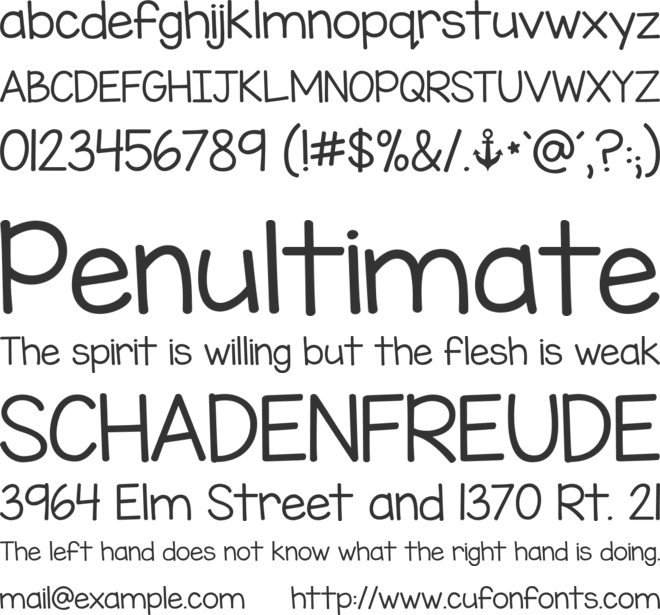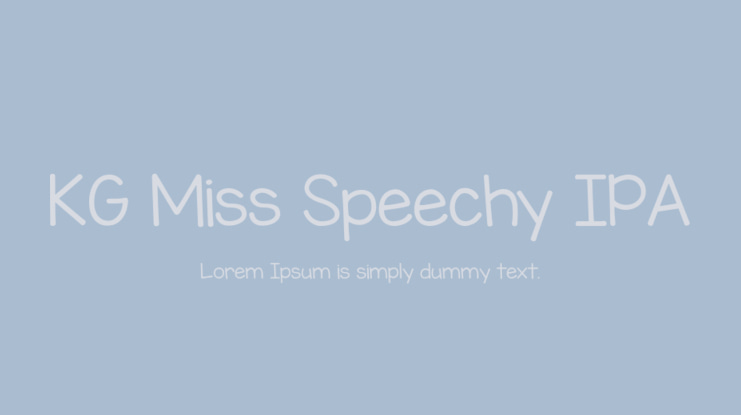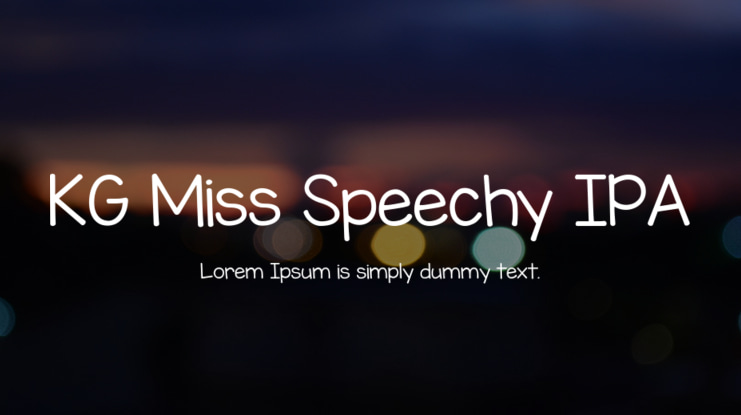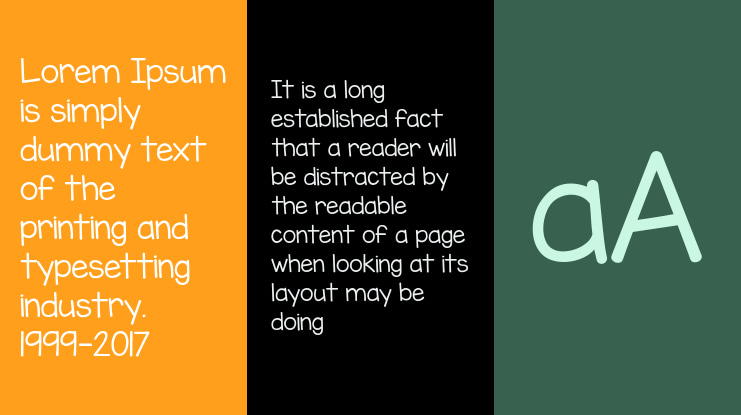
KG Miss Speechy IPA Font
This font was created just for SLPs-- it covers the complete international phonetic alphabet.
As a bonus, it also includes the Greek alphabet- perfect for sororities or fraternities!